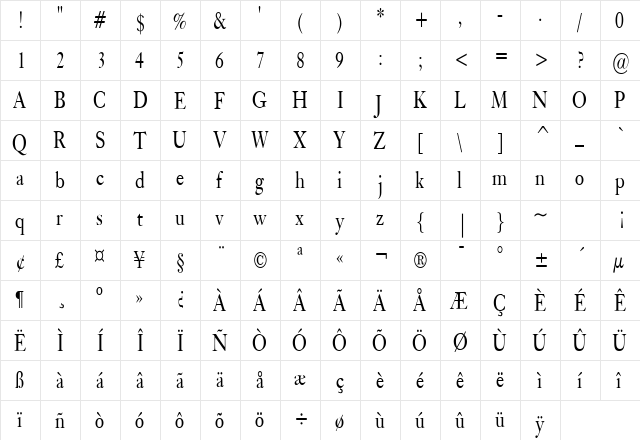
Bliss Thin Normal
Design Context for Bliss Thin Typeface
Bliss Thin is a composed and adaptable typeface that performs quietly and consistently across a wide range of design contexts. Its slender proportions lend an understated elegance to any composition.